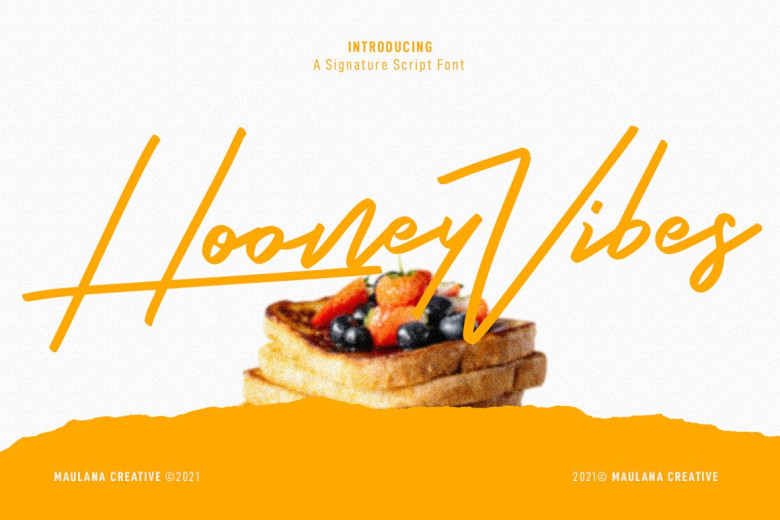
Hooney Vibes Font
Hooney vibes font is an expressive signature style script with fun characters, medium felt tip stroke, ligatures and an extra creative look. Additionally, this font supports multilingual over 100 languages.
Hooney Vibes font can be used for logos, social media posts, movie titles, book titles, short texts or long text letters – creating stunning works! Use it in combination with sans serif or serif fonts for an eye-catching effect.
Hooney Vibes Signature Script Font